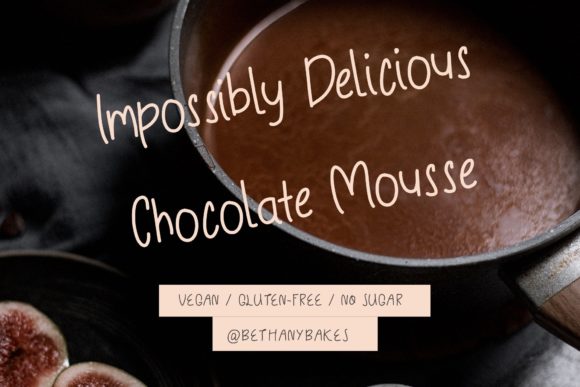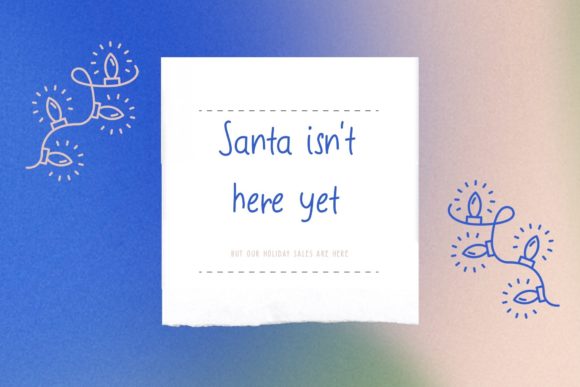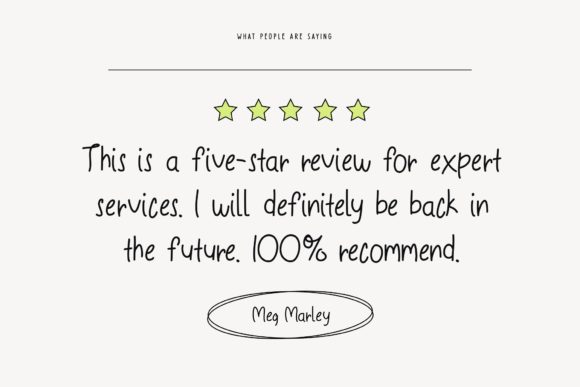
Introduction to Lilani Font
Remember that moment when you finally found the perfect font for your creative project? The excitement of seeing your design come to life with the perfect typography? That’s exactly what we’re about to share with you – the Lilani Font, a game-changer in the world of design.
As a designer, you know how important it is to have the right tools at your disposal. The Lilani Font is a valuable addition to your design resource arsenal, offering a unique and natural style that’s perfect for a wide range of projects. From Cricut projects to social media graphics, this font is incredibly versatile and can help you take your designs to the next level.
Key Features of Lilani Font
- High-quality, elegant script font suitable for creative projects, such as wedding invitations, greeting cards, and more.
- Comes with a transparent background, allowing for easy layering and customization in graphic design software.
- Includes 6 styles: Regular, Bold, Italic, Bold Italic, Script, and Outline, providing versatility for various design applications.
- Designed at 400 dpi resolution, ensuring crisp and clear text output when used in high-resolution print or digital projects.
- Unique, handwritten style with a touch of elegance and sophistication, making it perfect for adding a personal touch to your design projects.
Honest Review: Lilani Font
I recently stumbled upon the Lilani Font and I must say it’s been a game-changer for my creative projects. As a designer, I’m always on the lookout for high-quality design resources that can elevate my work.
The Lilani Font is a beautiful, elegant script font that’s perfect for adding a touch of sophistication to any design. Its transparent background makes it easy to work with, and the free download option is a major plus. I’ve used it for everything from branding projects to wedding invitations, and it never fails to impress.
Here are some of the things that work well with the Lilani Font:
- ✨ Elegant and sophisticated design
- ✨ High-quality font that’s perfect for professional projects
- ✨ Transparent background makes it easy to work with
One thing to keep in mind is that the Lilani Font may not be suitable for all types of projects. For example:
- ⚠️ It may be too elegant for some projects, so use it sparingly
- ⚠️ It may not be the best choice for bold or edgy designs
Overall, I’m thoroughly impressed with the Lilani Font. It’s a high-quality design resource that’s perfect for any creative project. With its elegant design and transparent background, it’s a must-have for any designer’s toolbox.
Lilani Font
The Lilani Font is commonly used in graphic design, digital art, and creative projects. It is ideal for creating invitations, posters, and other visual materials that require a high-quality font.
To get the most out of the Lilani Font, experiment with different font sizes, colors, and styles. You can also combine the font with other design elements to create unique and eye-catching visual effects.